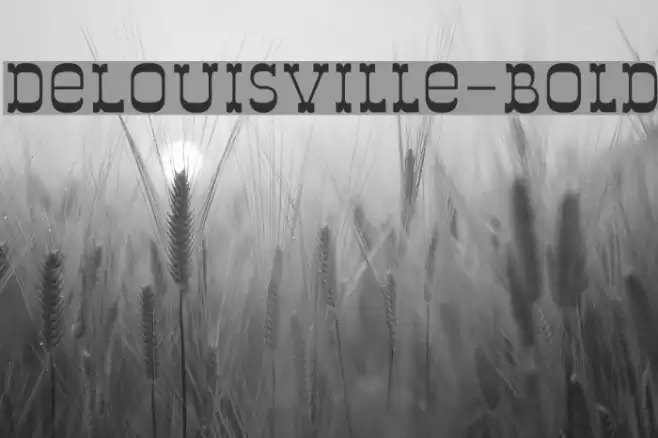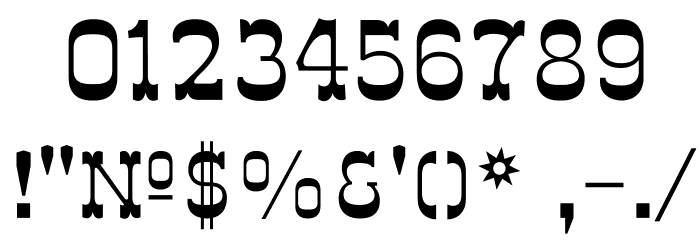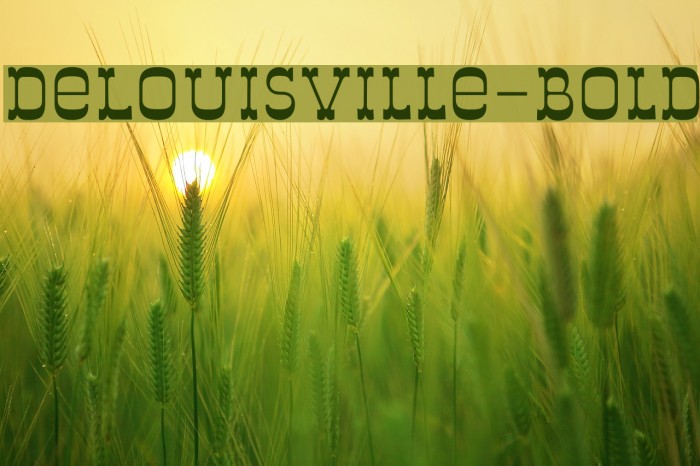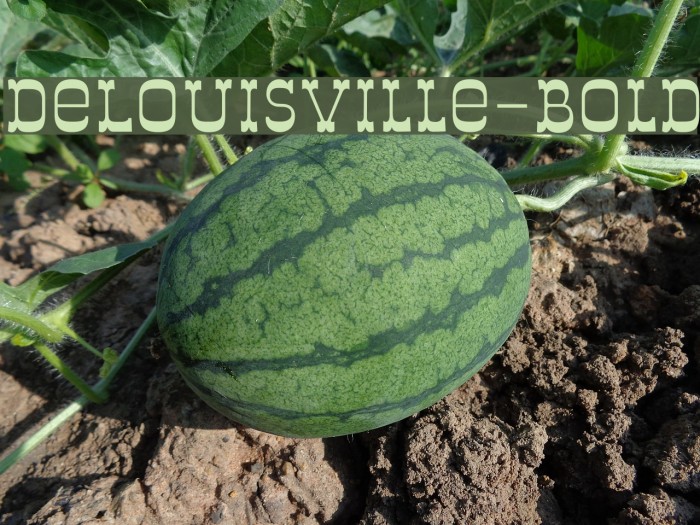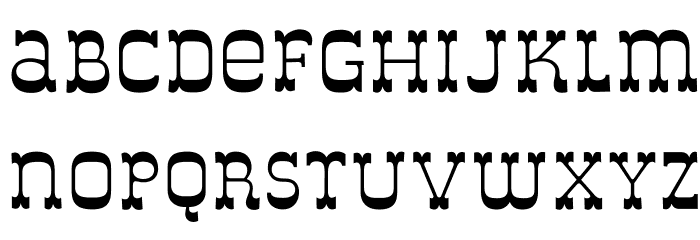
DeLouisville-Bold Font
DeLouisville-Bold Description
This font features a bold, decorative style with distinct slab serifs that give it a strong and impactful appearance. The characters are well-defined with a consistent weight, making them easily readable while maintaining a unique aesthetic. The uppercase and lowercase letters share a cohesive design, with the serifs adding a touch of elegance and sophistication. The numerals are clear and bold, matching the overall style of the alphabet. Special characters are included, maintaining the same decorative flair. This font is ideal for projects that require a bold statement, combining readability with a distinctive look.
A bold, decorative slab serif font with strong, impactful characters.
- Proposed Projects: Ideal for branding, poster design, headlines, and any project needing a bold, decorative touch.
- Category: Slab Serif